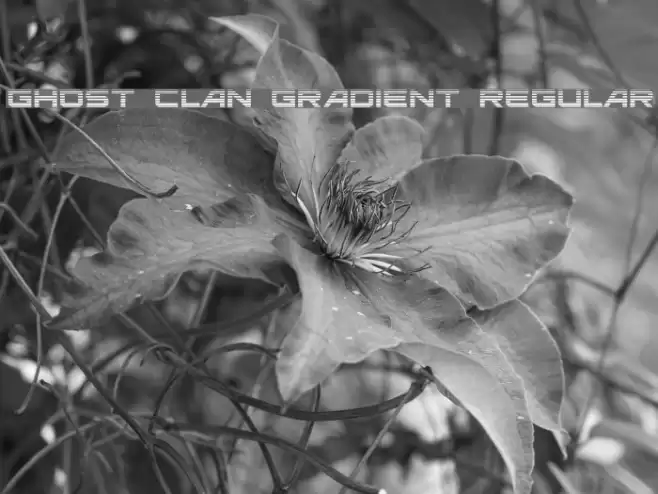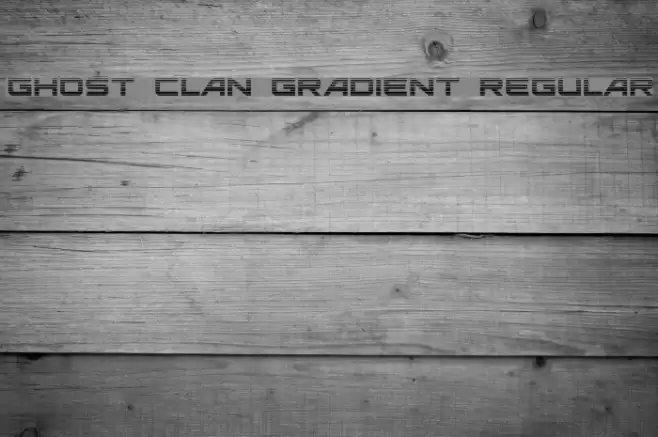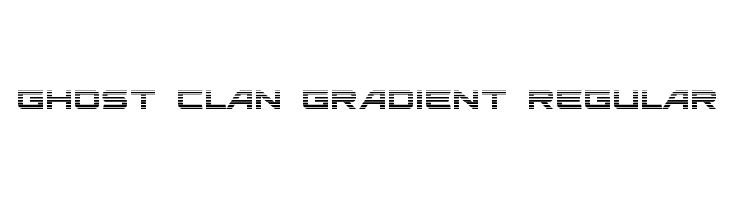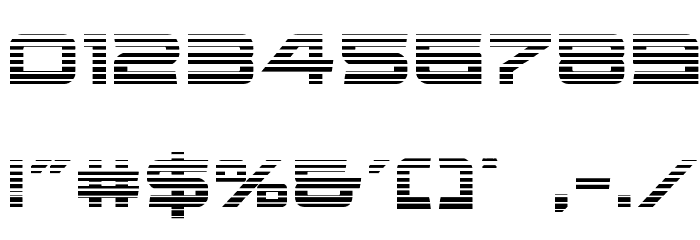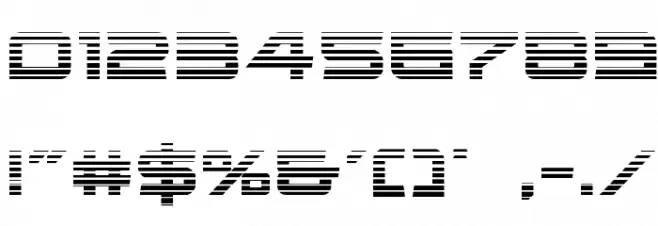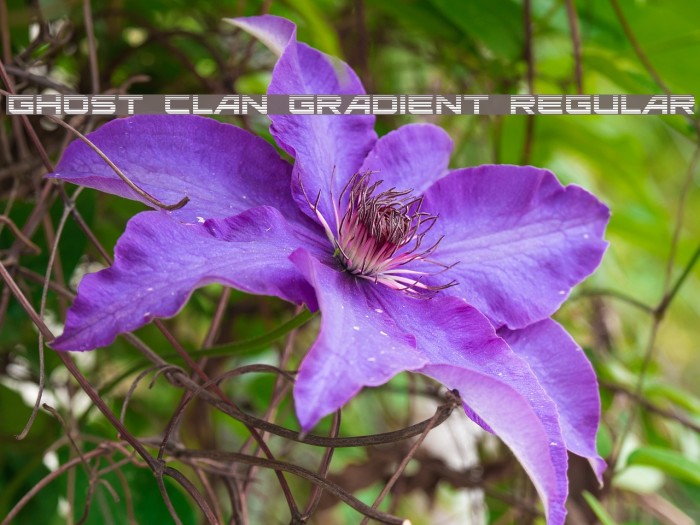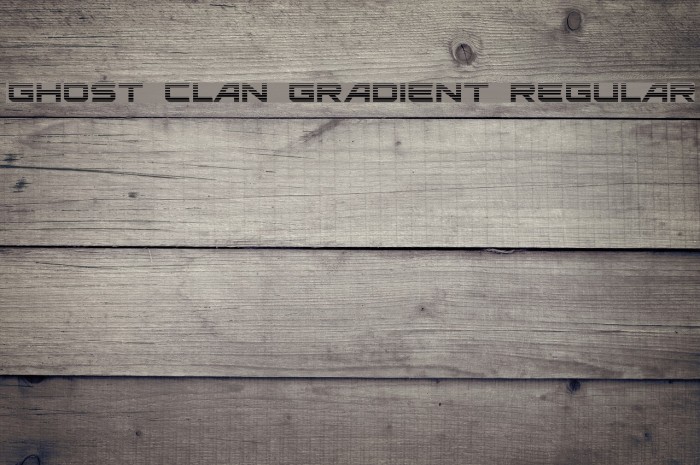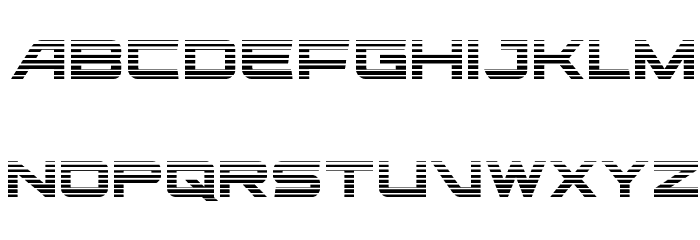
Ghost Clan Gradient Regular Font
Ghost Clan Gradient Regular Description
This font features a unique, futuristic design characterized by horizontal lines that create a gradient effect across each character. The uppercase and lowercase letters, as well as numbers and special characters, maintain a consistent style that emphasizes a modern and digital aesthetic. The lines vary in thickness, contributing to a dynamic visual texture that is both eye-catching and innovative. This font is ideal for projects that require a bold, technological feel, making it suitable for digital media, gaming, and tech branding.
A futuristic font with a gradient line effect, perfect for digital and tech themes from Uncategorized fonts.